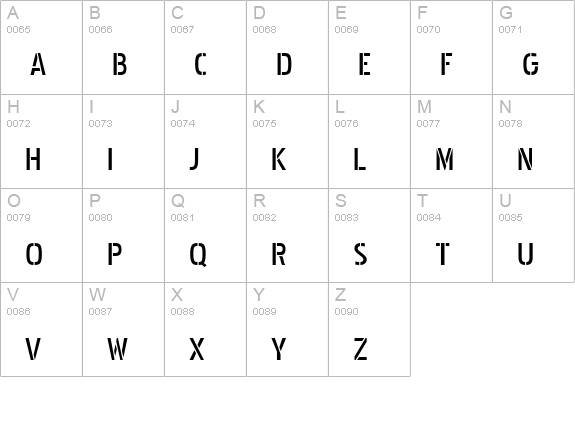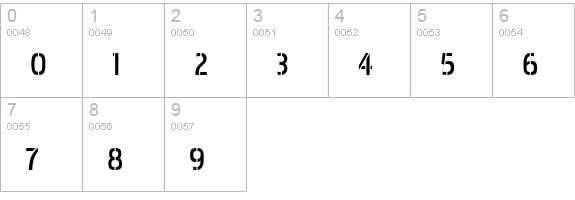
Pakenham Stencil font is a stylish and modern typeface that exudes sophistication and elegance. Its sharp edges and clean lines make it perfect for a variety of design projects, from logos to posters to branding materials. The stencil design adds a unique touch to any text, making it stand out and command attention. What sets Pakenham Stencil font apart is that it is completely free to download. You can easily access this versatile font at FontsMarket.com, where you can unleash your creativity and use it in both personal and commercial projects without any restrictions. Whether you're a professional designer looking for a new font to add to your collection or a hobbyist searching for the perfect typeface for your latest project, Pakenham Stencil font is sure to impress with its combination of style and accessibility. Download it now and elevate your designs to the next level.